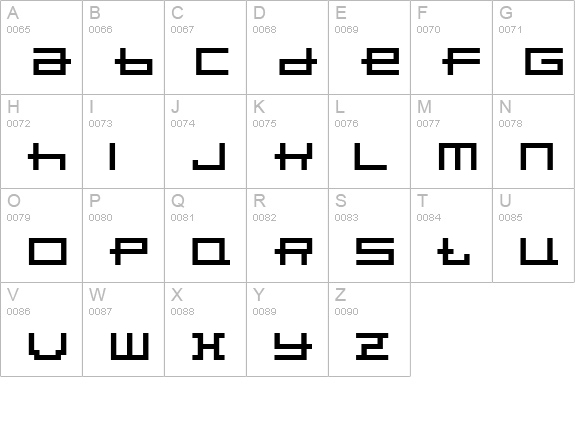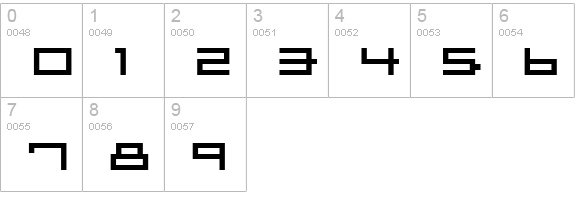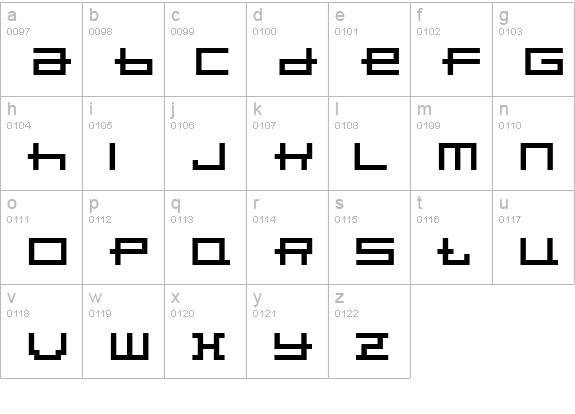
Porpoise Font Details
Porpoise font is a sleek and modern typeface designed for those who appreciate clean and elegant typography. With its smooth lines and sharp edges, Porpoise exudes a sense of sophistication and professionalism. This versatile font is perfect for a wide range of design projects, from branding to editorial layouts. What sets Porpoise font apart is not only its timeless design, but also the fact that it is available for free download at FontsMarket.com. This means you can easily access this high-quality font without any cost, making it a valuable addition to your font collection. Whether you're a designer looking for a new go-to typeface or a creative looking to add a touch of class to your projects, Porpoise font is sure to impress with its blend of style and accessibility.